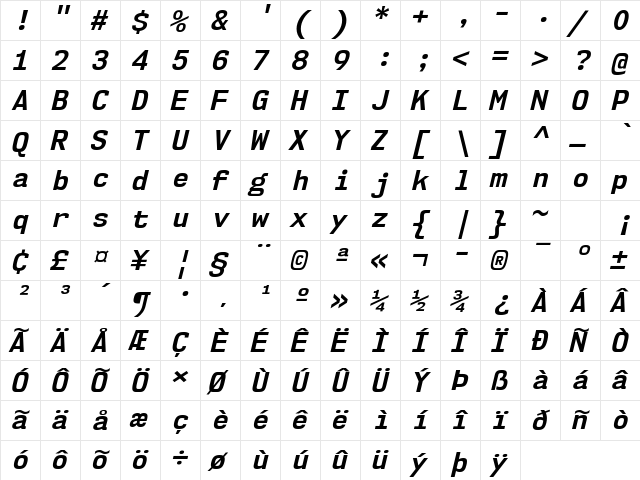
NK57 Monospace Bold Italic Font Preview
Design Context for NK57 Monospace Typeface
NK57 Monospace uses fixed-width spacing throughout, giving it the structured, systematic character associated with coding environments and technical documentation. The slanted form adds forward momentum and visual energy. The heavy weight commands attention and anchors typographic hierarchies.
Pro Tip: Pair NK57 Monospace with a proportional sans for UI contexts where code-style labels and regular body copy need to coexist.